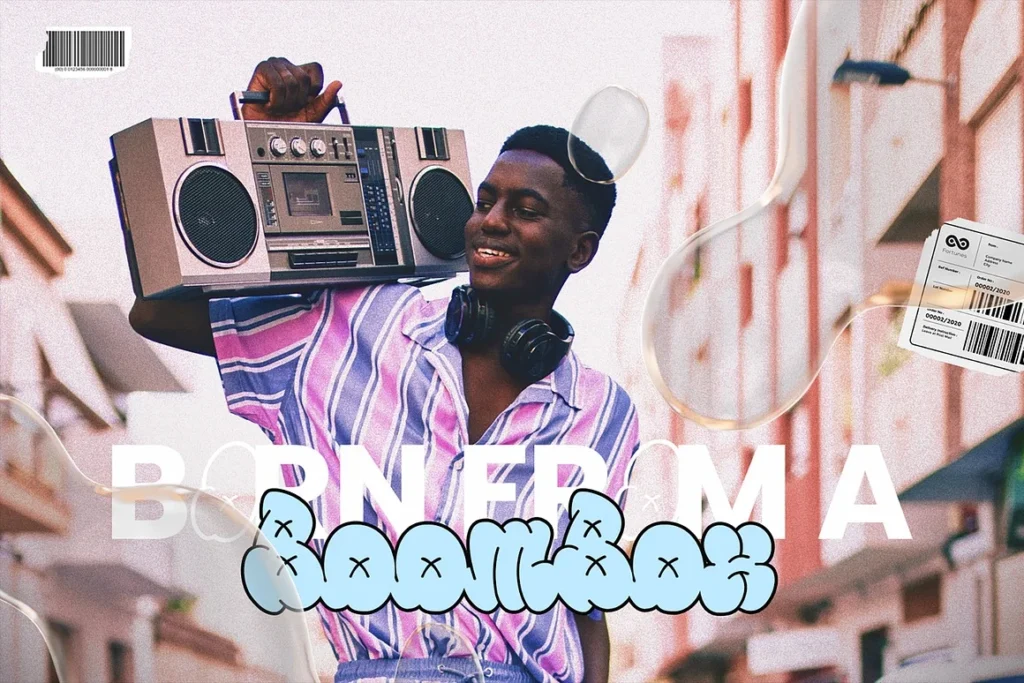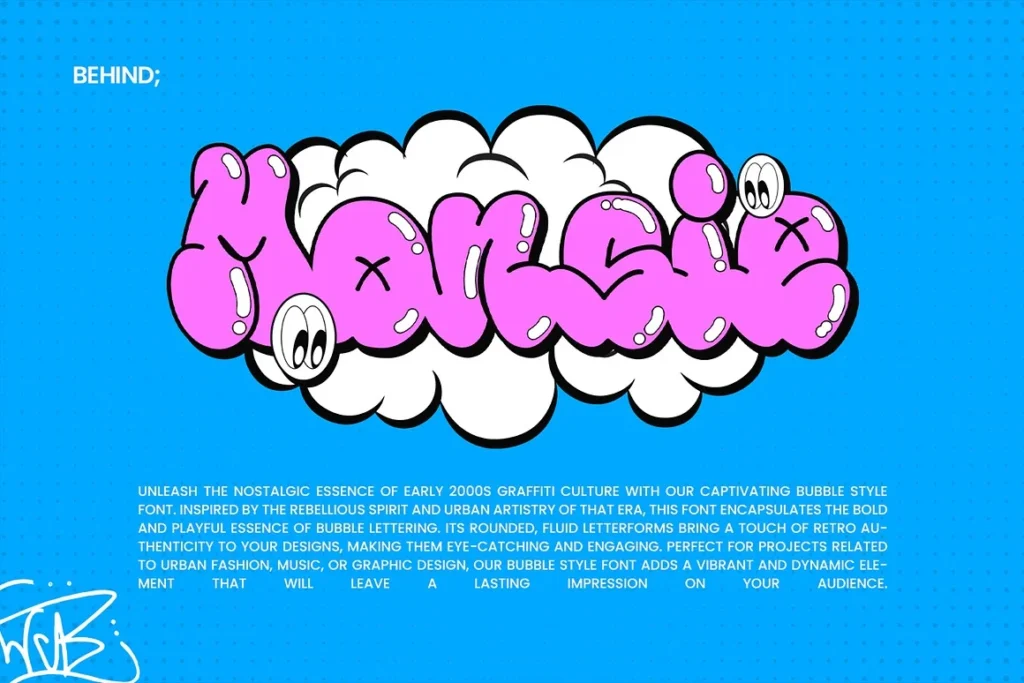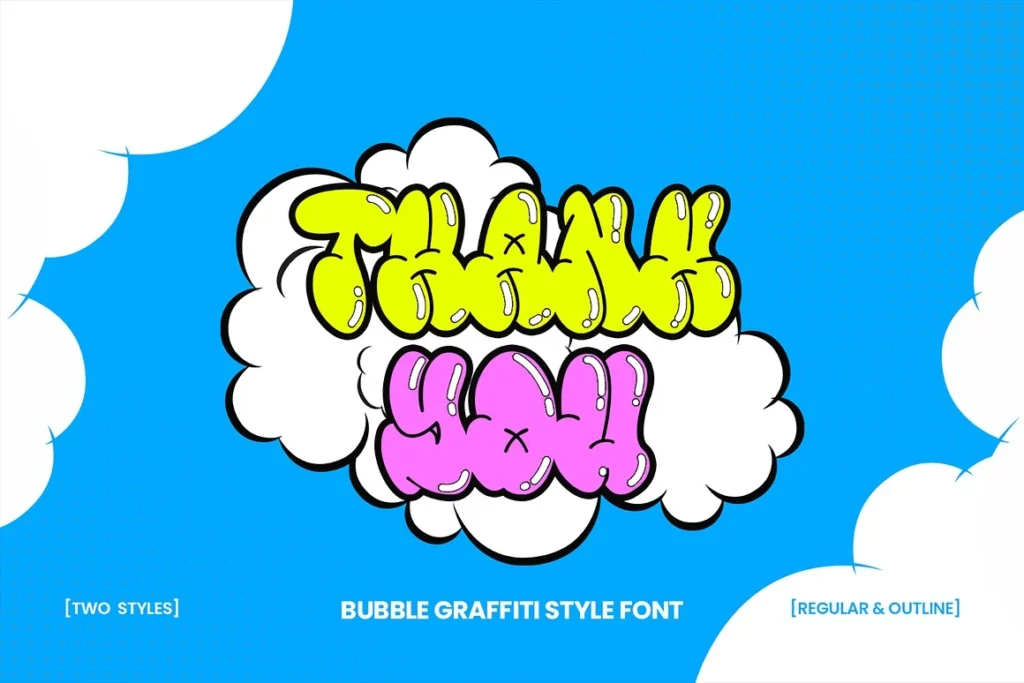
Experience the elegance and charm of the Premium Monsie Bubble Display Font, a stunning typeface designed to elevate your creative projects. This font features a playful yet sophisticated bubble style that captures attention and adds a unique flair to any design.
Perfect for branding, invitations, posters, and social media graphics, the Monsie font offers versatility with its bold, rounded letters that ensure readability while making a statement. With a variety of characters and ligatures, you can easily customize your text to fit your vision.
Premium Monsie Bubble Display Font Whether you’re a graphic designer, a small business owner, or simply looking to add a touch of whimsy to your work, it is the ideal choice to bring your ideas to life. Embrace creativity and make your designs pop with this delightful font!